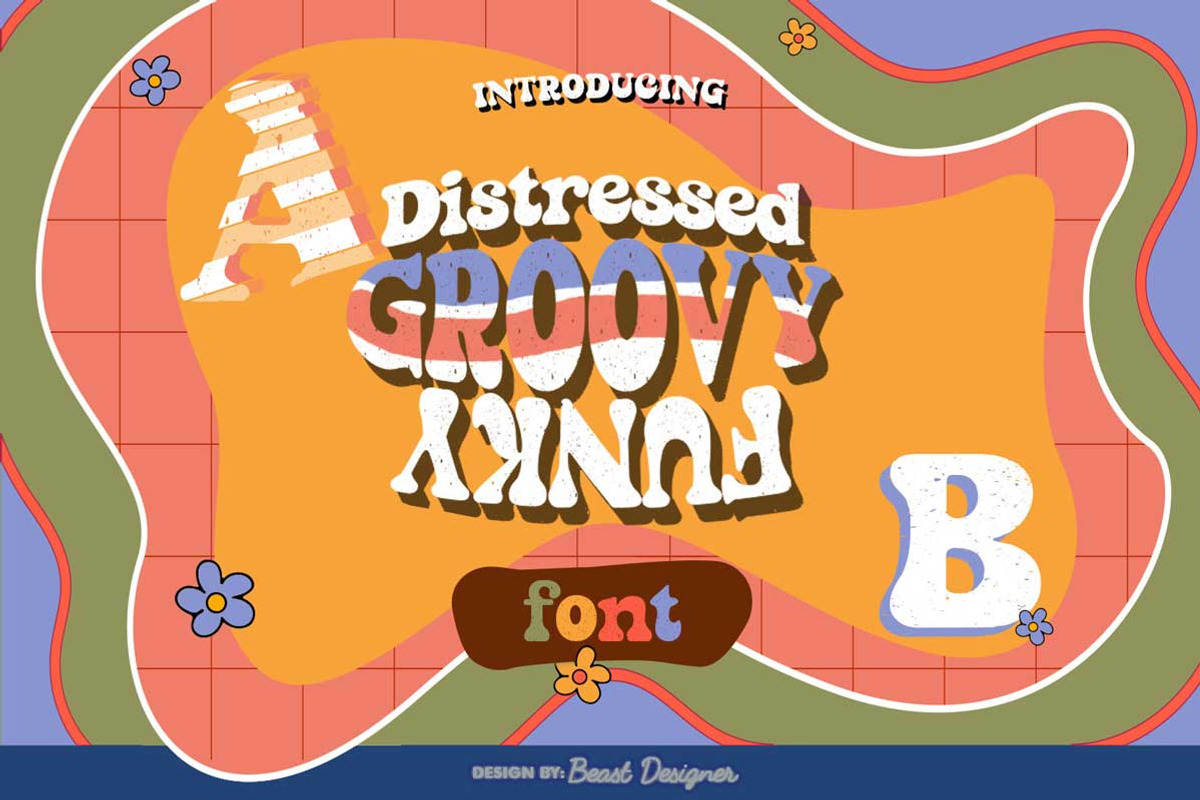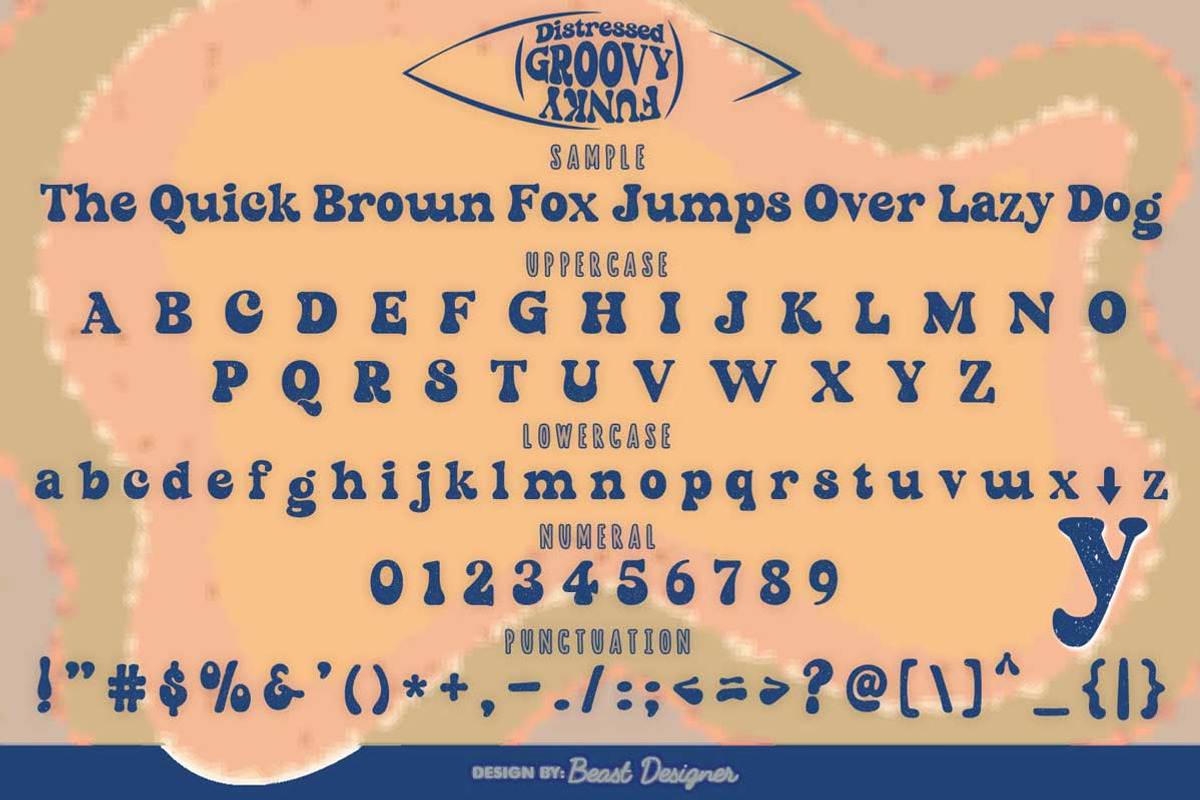
Distressed Groovy Funky
Distressed Groovy Funky Font is a charming retro display font designed to make a statement. Its unique style evokes a sense of nostalgia and playfulness, making it ideal for eye-catching designs like t-shirts, tote bags, logos, wedding invitations, and more. This font's distinct personality adds a touch of vintage cool to any project.